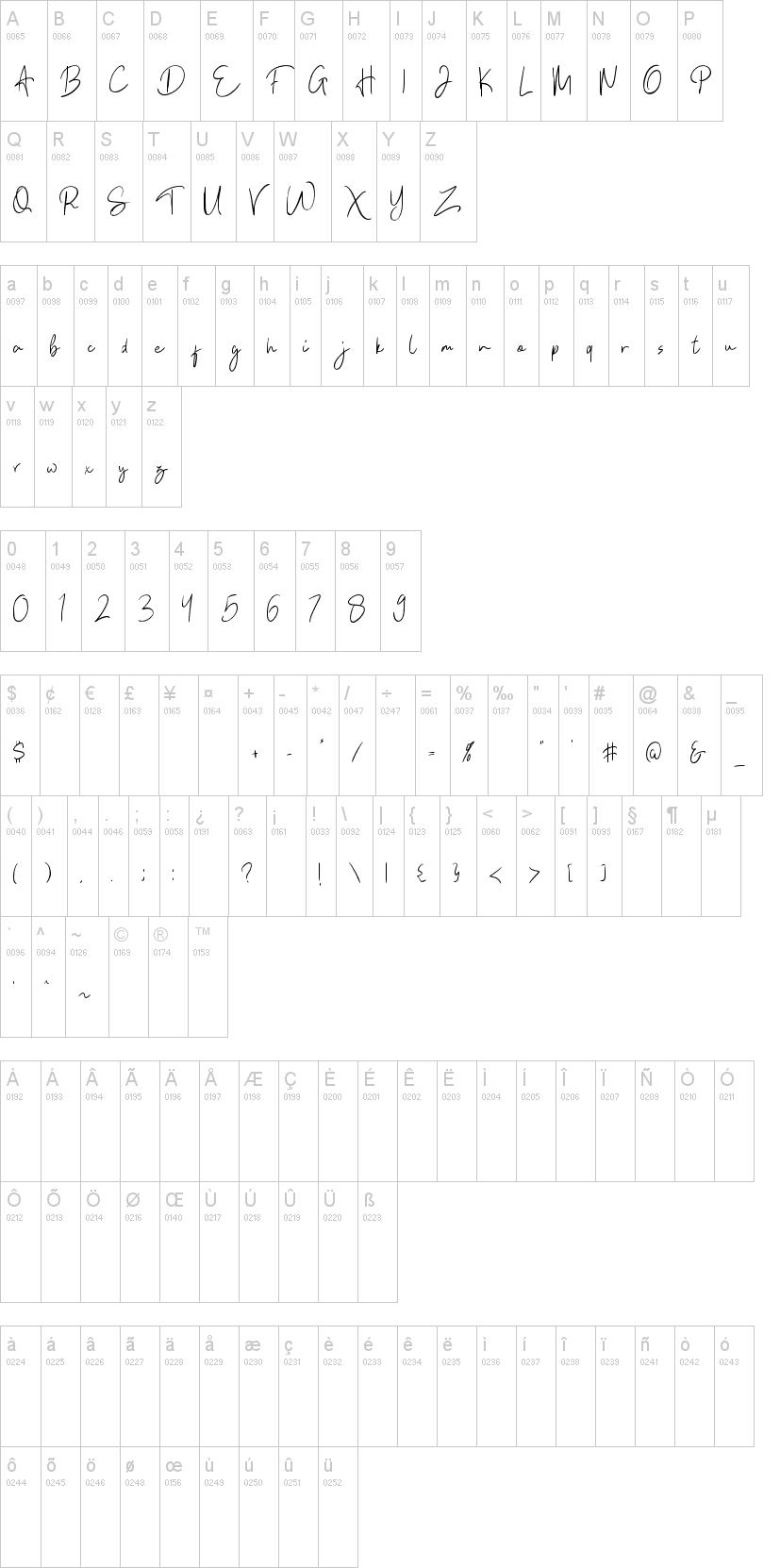
Kathlyn
Note of the authorIntroducing Kathlyn Script Signature Font - A modern and elegant handwriting font script with various thickness :) .for any Comercial Use please notice me youthlabs.std@gmail.com see the full version on link bellow